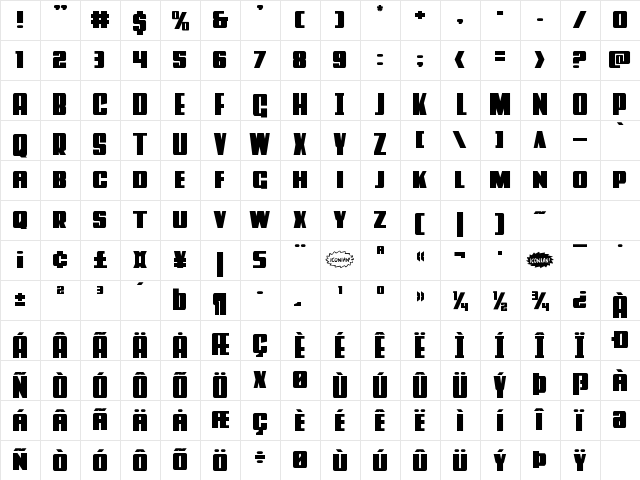
Power Lord Regular Free Font
Power Lord Regular
Complete Power Lord Regular glyph index. Displaying only characters natively supported by Power Lord Regular font.
Design Context for Power Lord
Power Lord brings high-energy athletic personality to the page - its confident, muscular forms are built for impact.
Pro Tip: Use Power Lord in all-caps headlines where its athletic energy can fully express itself. Pair with a solid, simple sans for supporting text.